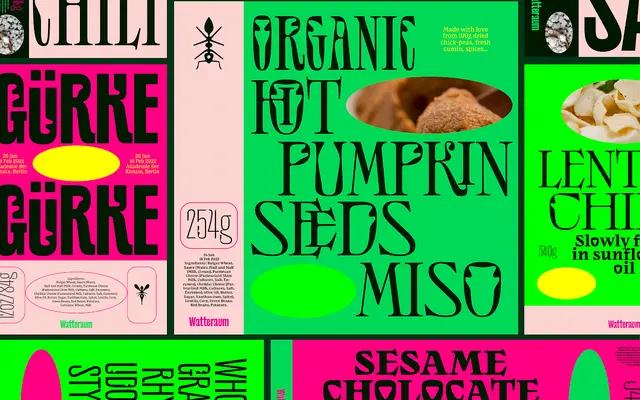
NaN Success
Studio Triple · 2021
A retail display typeface from Studio Triple, released between 2021 and 2022.
Released as a retail offering by Studio Triple across 2021 and 2022, NaN Success sits within their typeface catalogue alongside other original type designs. The page offers limited detail on weights or language support, suggesting a focused, single-family release. Its positioning as a new retail product implies it was designed for commercial licensing rather than custom use.
Classified as display given the name and retail positioning; likely a high-contrast or expressive serif designed for headline use, though limited page content constrains precise subcategory detail.